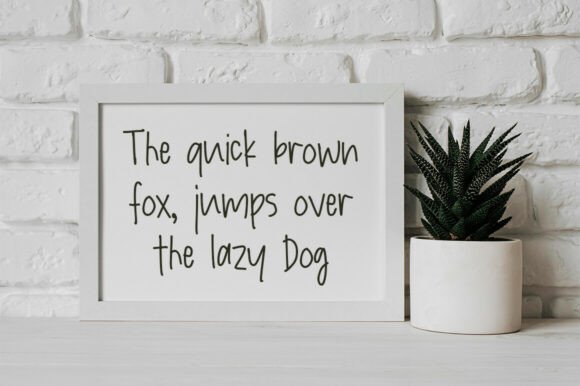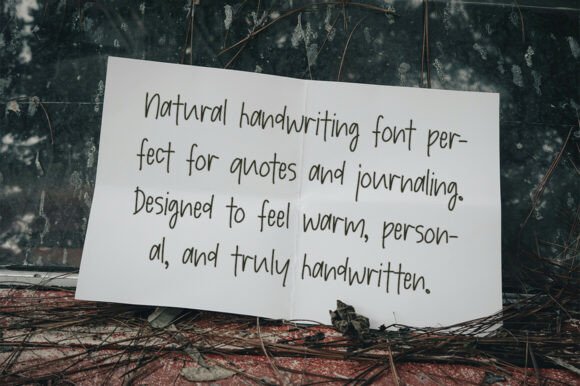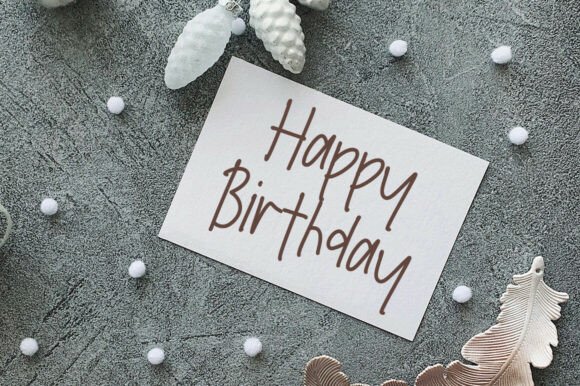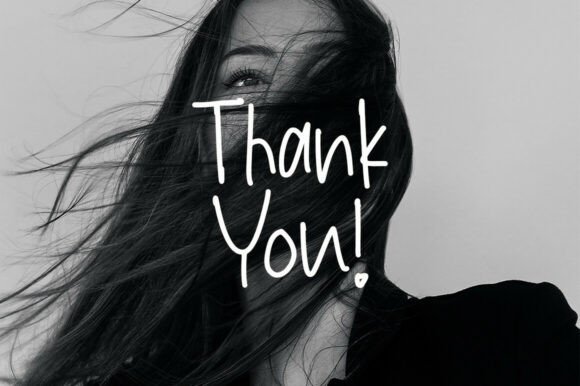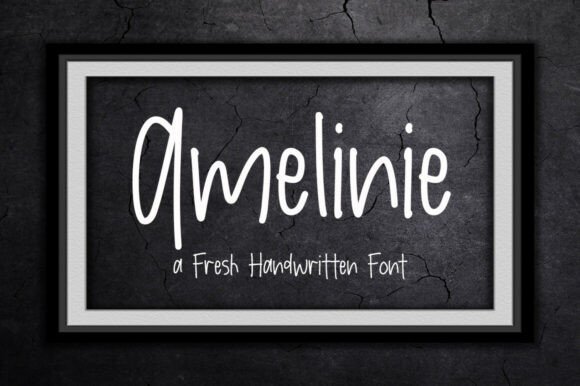
Introducing Amelinie Font: The Perfect Choice for Springtime Designs
Are you looking for a font that can add a touch of whimsy and romance to your design projects? Look no further than Amelinie, a charming brush font that exudes a playful and elegant vibe. With its flowing curves and elegant strokes, Amelinie is the perfect choice for designers and crafters who want to bring a fresh and cheerful feel to their creations.
The Characteristics of Amelinie Font
Amelinie is a brush font that is characterized by its elegant strokes and flowing curves. The font has a whimsical and playful feel, making it perfect for designs that require a touch of springtime romance. The letters are carefully crafted to give a sense of movement and fluidity, making it ideal for designs that need to convey a sense of energy and joy.
What Makes Amelinie Font So Versatile?
One of the things that makes Amelinie font so versatile is its ability to be used in a variety of design projects. Whether you’re creating invitations, greeting cards, or branding materials, Amelinie is the perfect choice. The font is elegant and sophisticated, yet playful and fun, making it suitable for a wide range of designs.
Ideal Uses for Amelinie Font
Amelinie font is ideal for a variety of design projects, including:
- Invitations: Whether you’re planning a wedding, baby shower, or birthday party, Amelinie font is the perfect choice for your invitations. The font’s elegant and playful feel makes it perfect for formal and informal events.
- Greeting Cards: Amelinie font is also great for creating greeting cards for special occasions. The font’s flowing curves and elegant strokes make it perfect for conveying heartfelt messages.
- Branding Materials: If you’re looking for a font that can add a touch of whimsy and romance to your branding materials, Amelinie is the perfect choice. The font is elegant and sophisticated, yet playful and fun, making it suitable for a wide range of brands.
Tips for Using Amelinie Font
Here are a few tips for using Amelinie font in your design projects:
- Pair it with a simple font: Amelinie font is elegant and playful, so it’s best to pair it with a simple font that won’t compete with it. A simple sans-serif font is a great choice.
- Use it in moderation: While Amelinie font is perfect for adding a touch of whimsy and romance to your designs, it’s best to use it in moderation. Use it for headings and titles, and a simpler font for body text.
- Experiment with colors: Amelinie font is perfect for designs that require a pop of color. Experiment with different colors and combinations to find the one that works best for your design.
Why Designers and Crafters Love Amelinie Font
Designers and crafters love Amelinie font for many reasons. Here are a few:
- Unique and eye-catching: Amelinie font is unique and eye-catching, making it perfect for designs that need to stand out.
- Easy to read: Despite its playful and whimsical feel, Amelinie font is easy to read, making it perfect for designs that require a lot of text.
- Versatile: Amelinie font is versatile and can be used in a variety of design projects, from invitations to branding materials.
In conclusion, Amelinie font is a charming brush font that exudes a whimsical and playful vibe. With its elegant strokes and flowing curves, this font is perfect for adding a touch of springtime romance to any design project. Ideal for invitations, greeting cards, and branding materials, Amelinie will bring a fresh and cheerful feel to your creations. Whether you’re a designer or crafter, Amelinie font is a great choice for any project that requires a touch of elegance and playfulness.